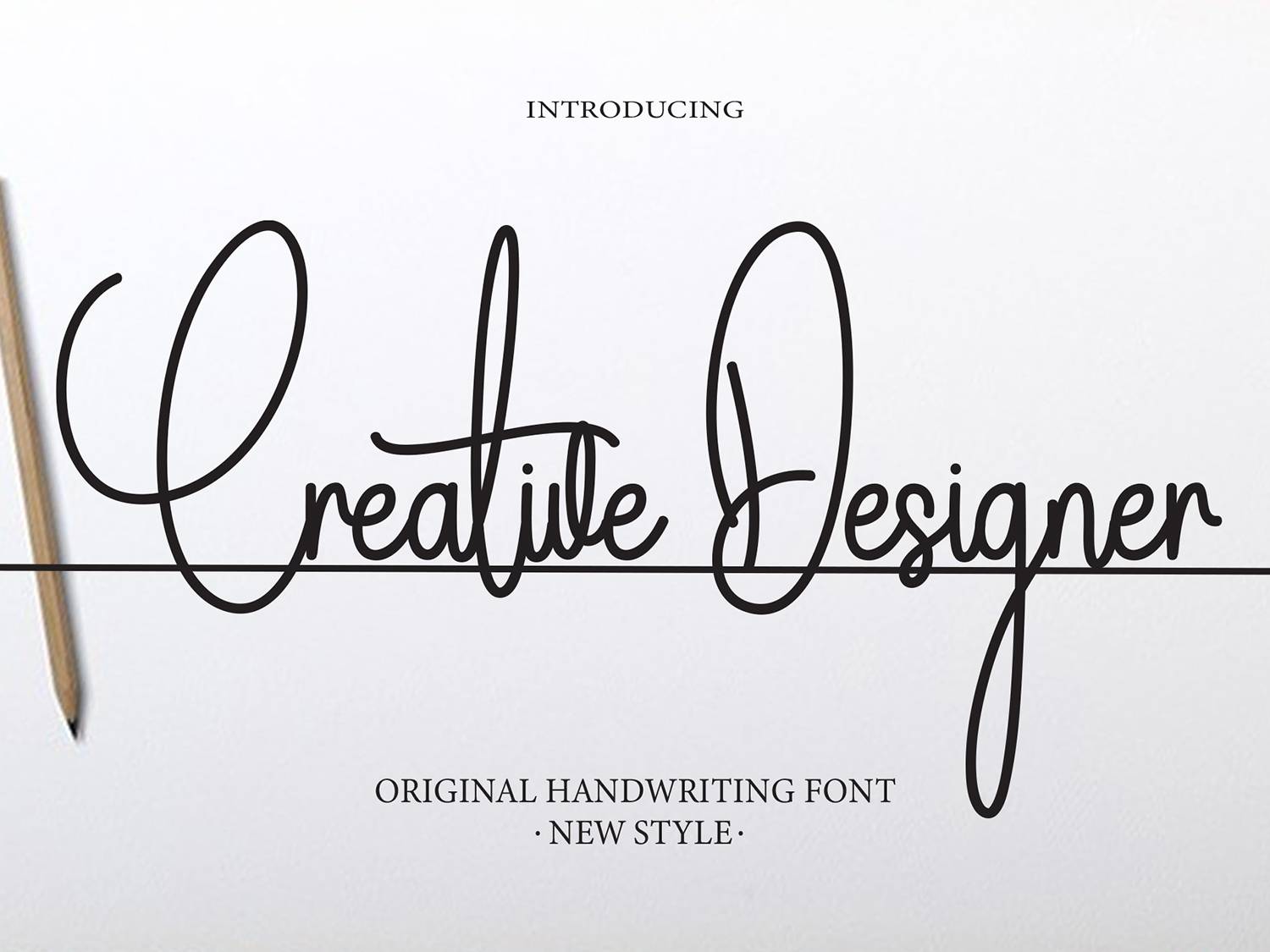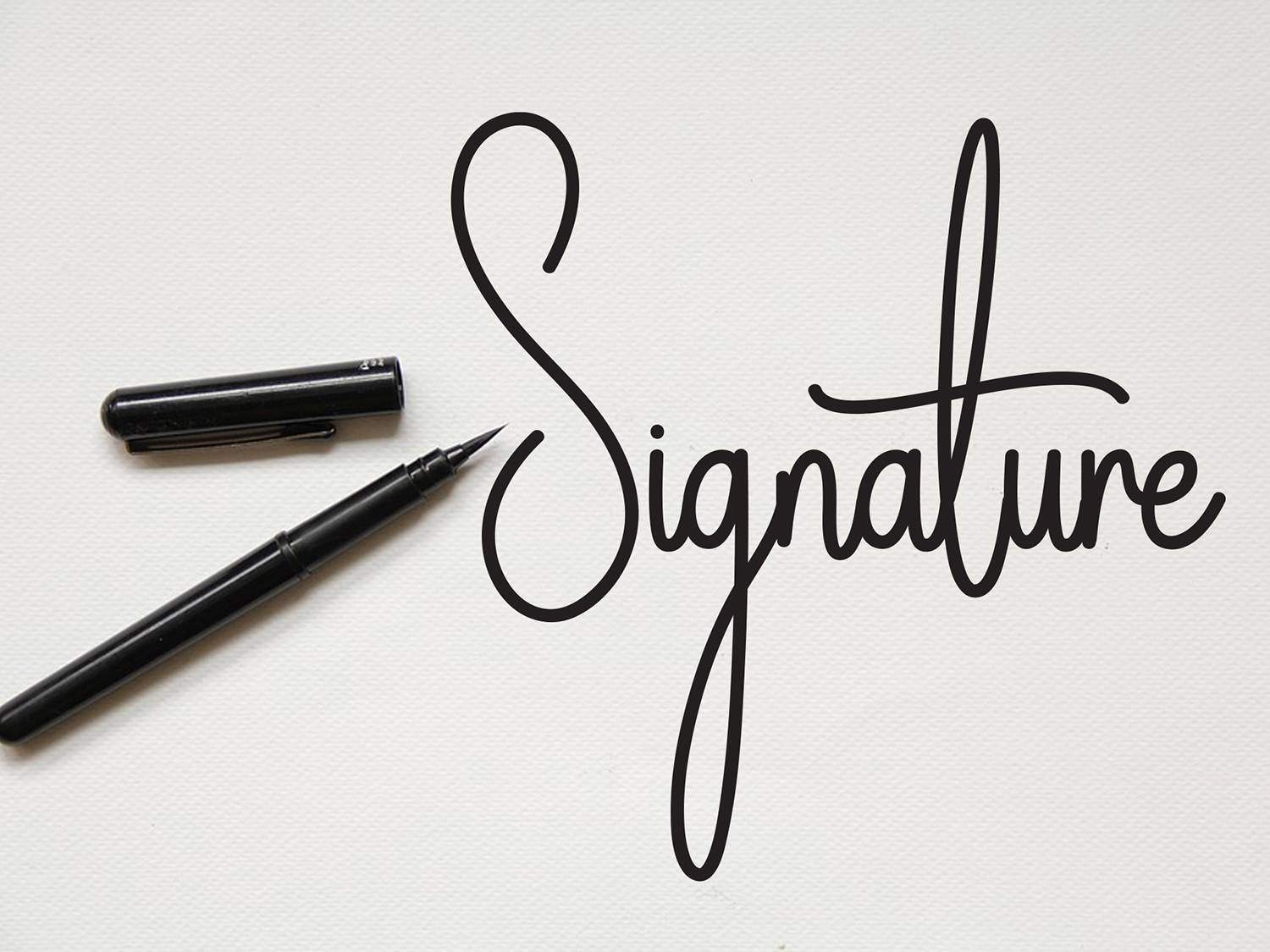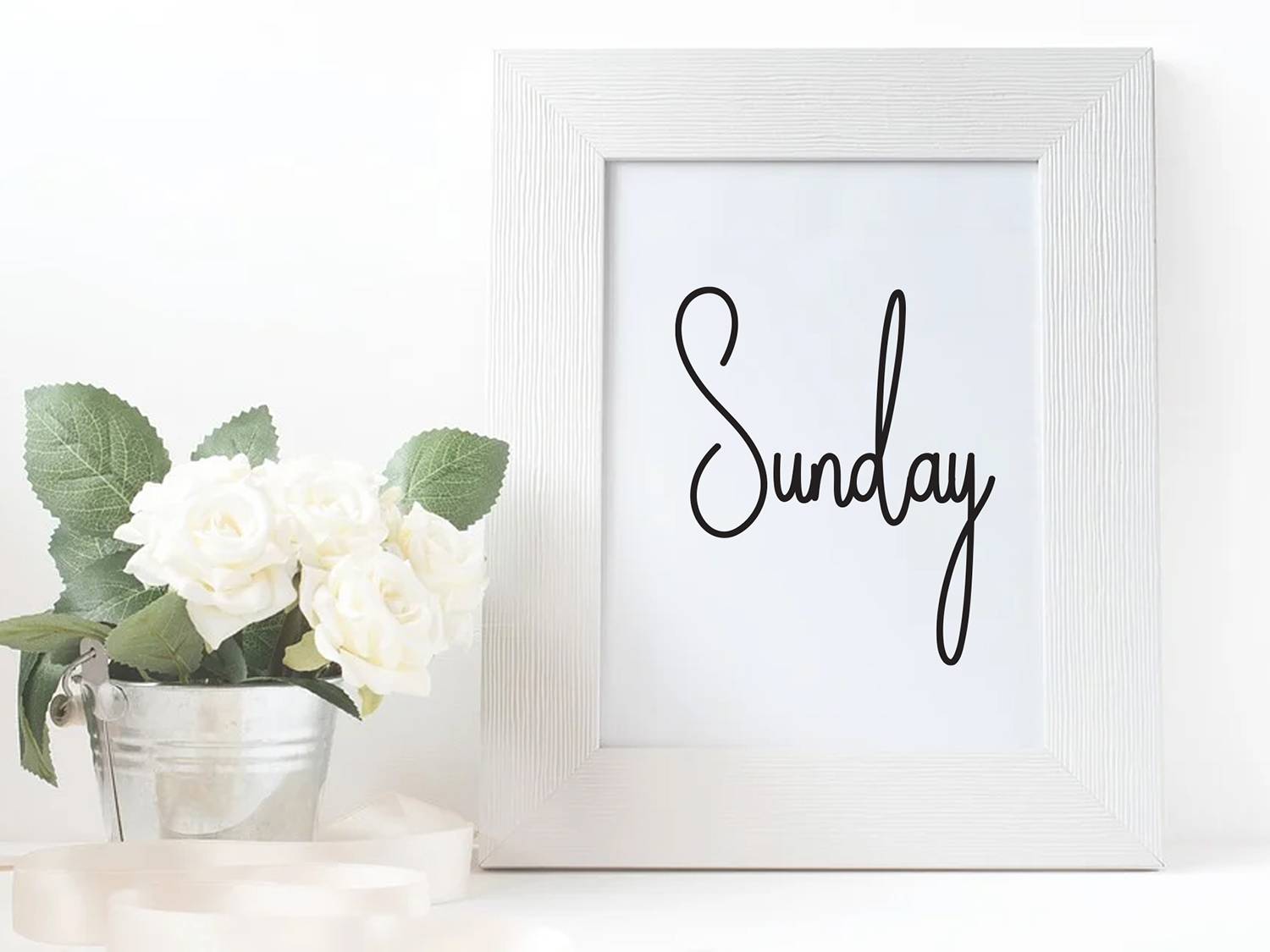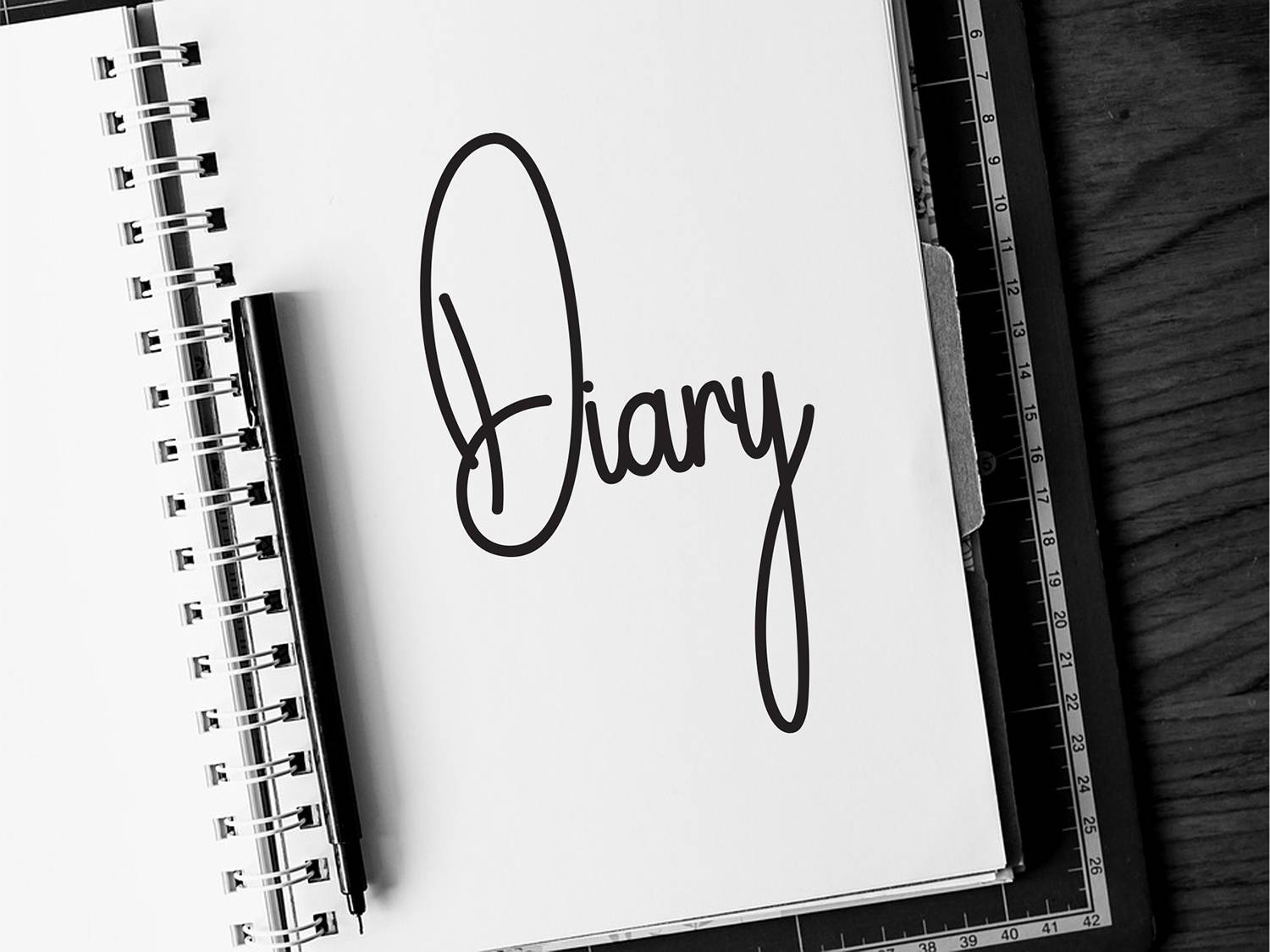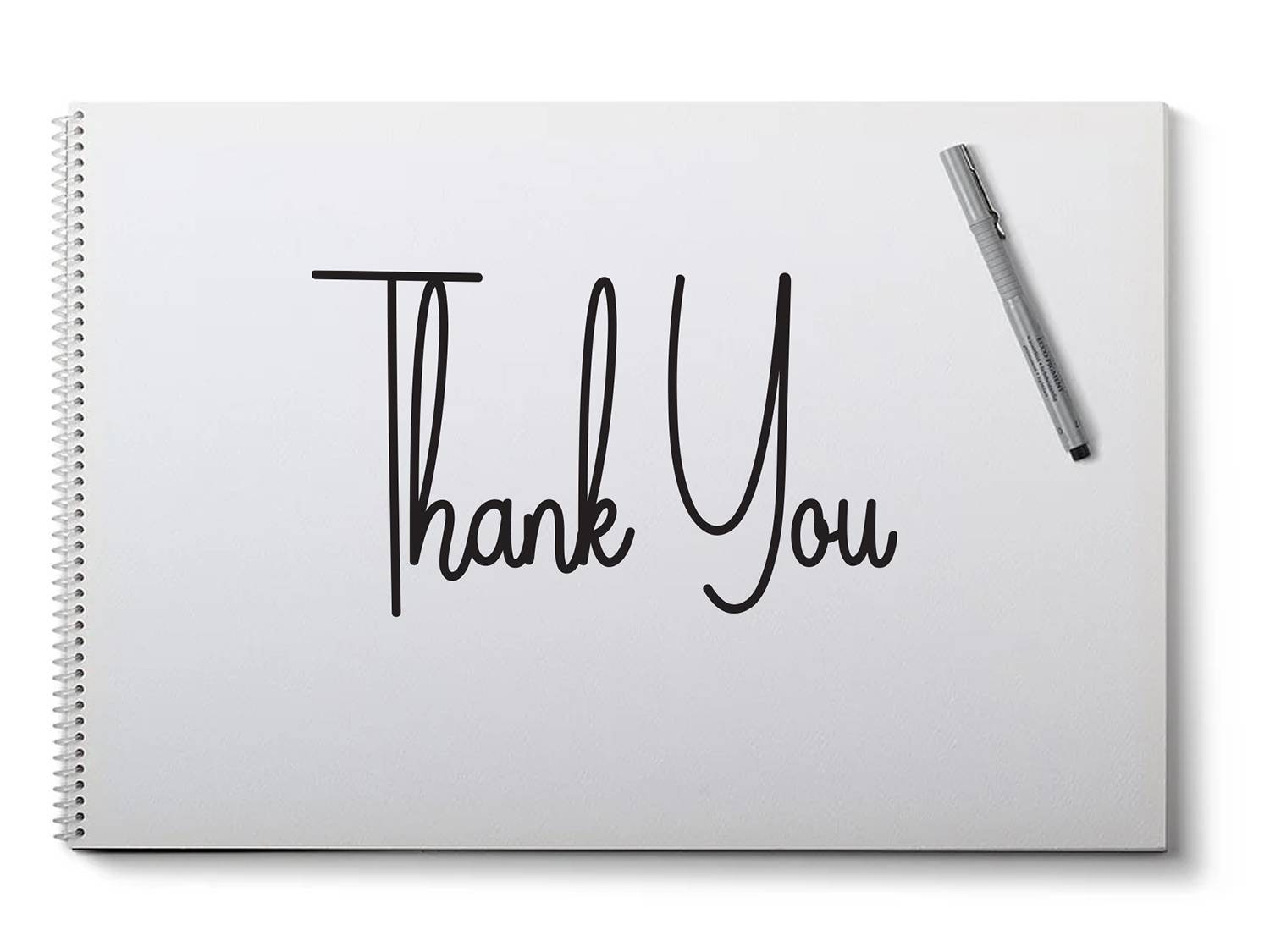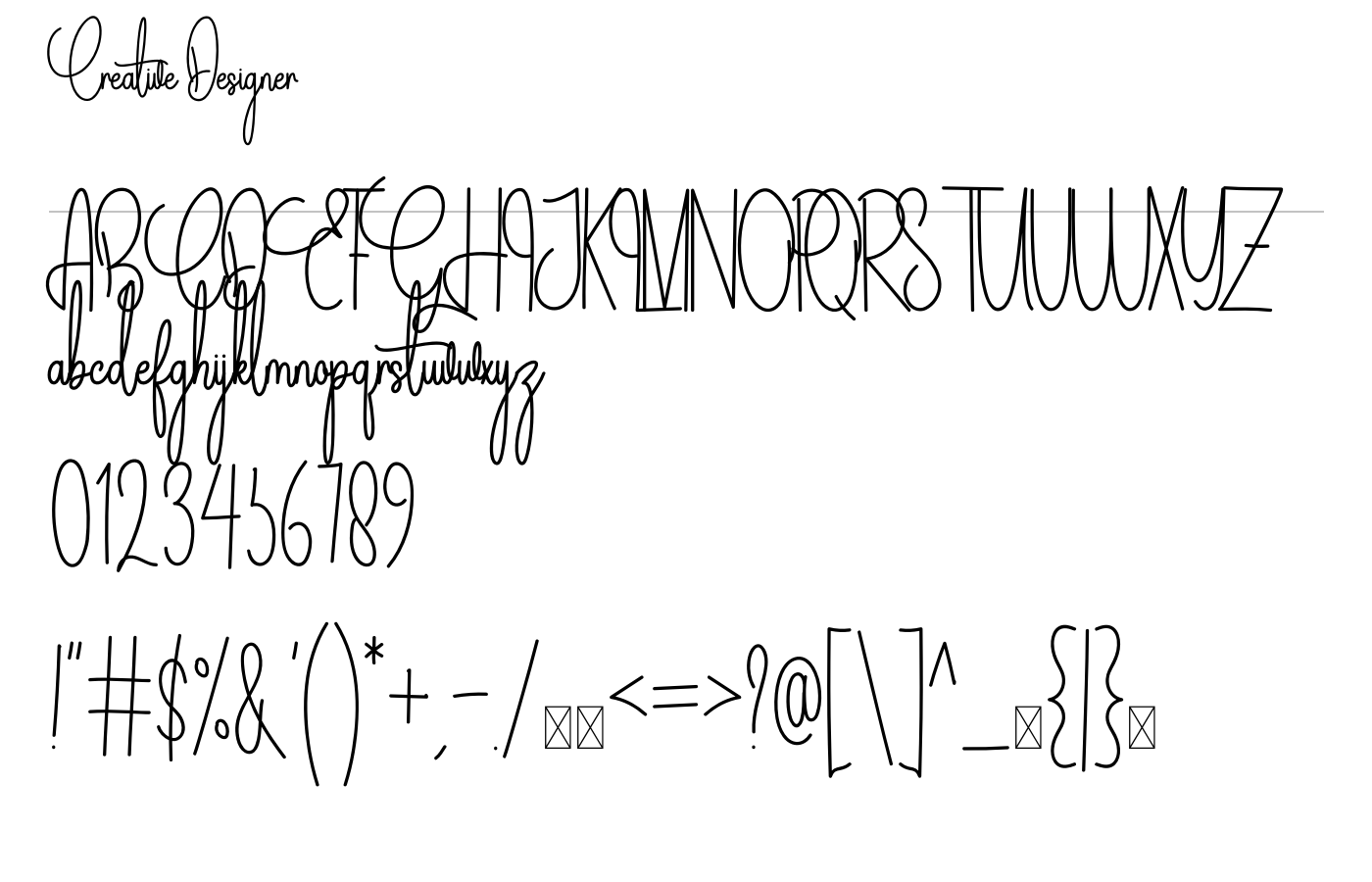
Creative Designer Font is a slender, playful handwritten script with elongated, whimsical letterforms that combine tall uppercase characters with delicate, flowing lowercase letters. Its light weight and organic stroke style give it a casual yet creative personality, making it ideal for artistic branding, personal logos, and chic editorial designs that want to convey elegance with a fun, approachable edge.
Creative Designer Font
About Creative Designer Font